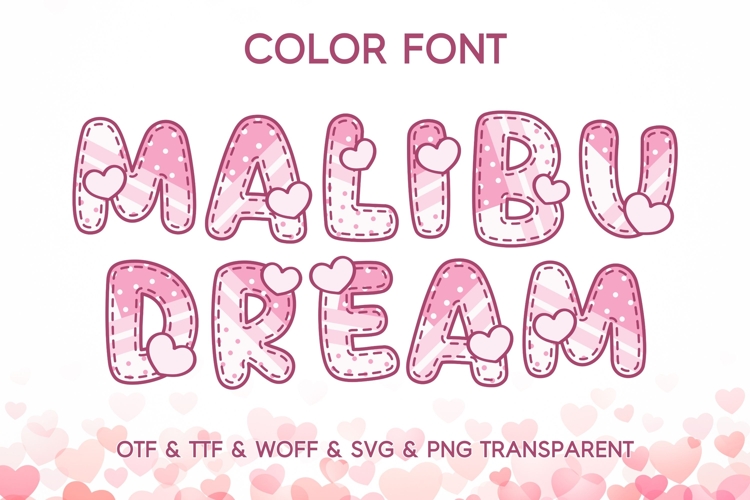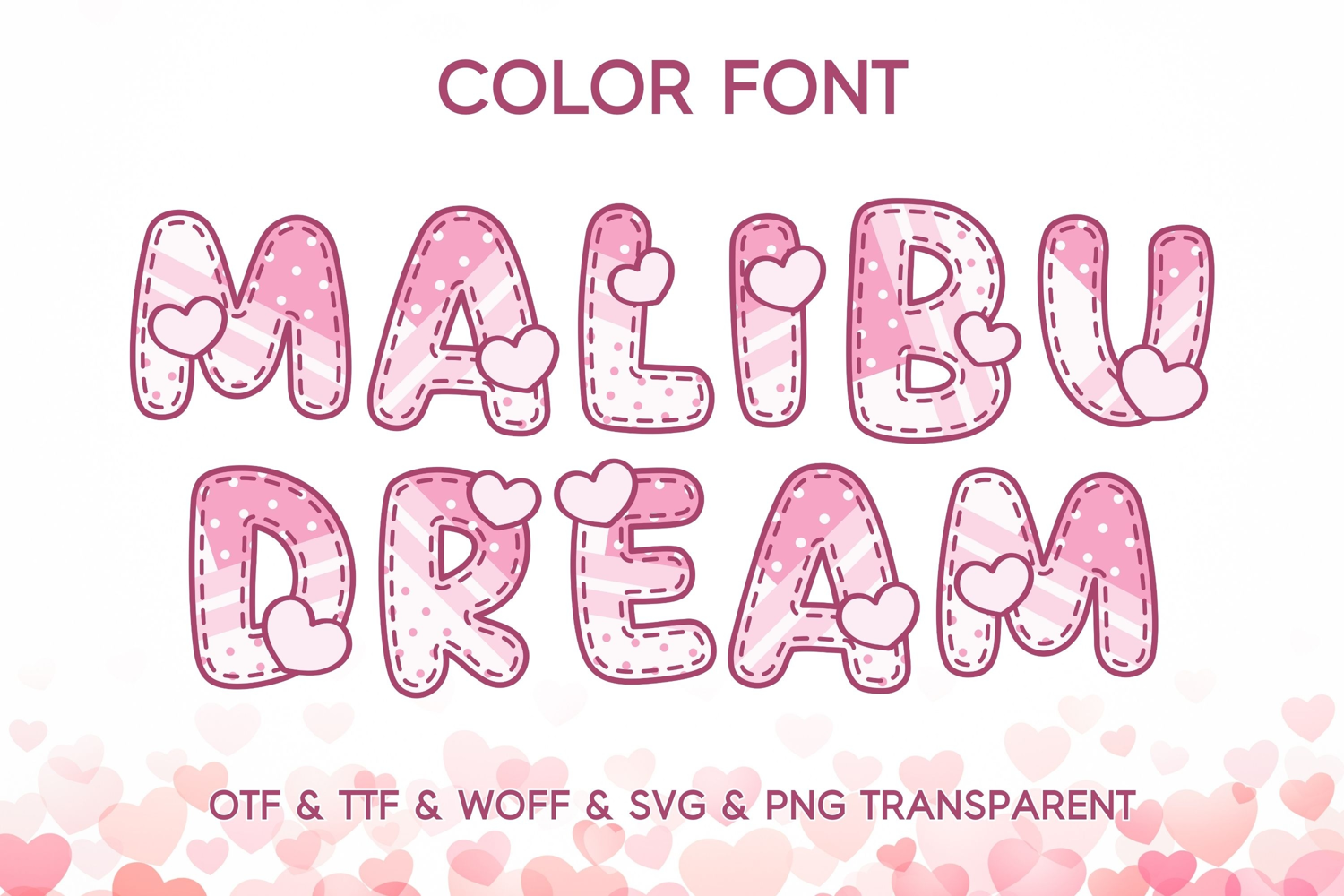
Malibu Dream - Color Font
Bring the joy and texture of a handmade holiday gift to your typography with the cute Heart Color Font, a wonderfully tactile display typeface.
This Malibu Dream font features high-quality SVG color glyphs, masterfully illustrating each letter. The Malibu Dream font typeface is ideal for crafting whimsical holiday headlines, unique gift tags, children’s book titles, and any design that needs an immediate, festive “wow” factor. It’s a bold, colorful, and utterly charming Color Font that makes your text the centerpiece of the celebration.
Perfect for greeting cards, children’s crafts, party invitations, stickers, and holiday merchandise, this color typeface comes in OTF, TTF, WOFF, SVG, and PNG formats for versatile use. Its bright palette and adorable design bring a joyful energy to every creation. Each glyph is richly detailed and rendered in color, making it ideal for projects where character and personality matter.